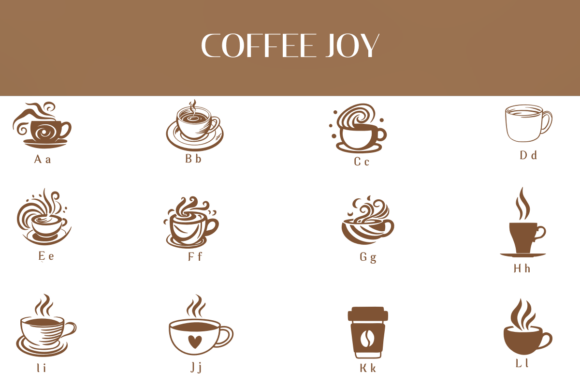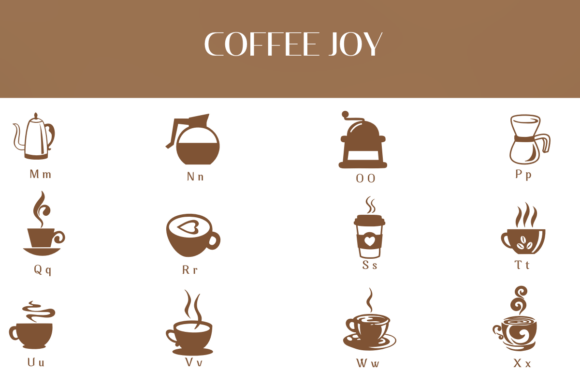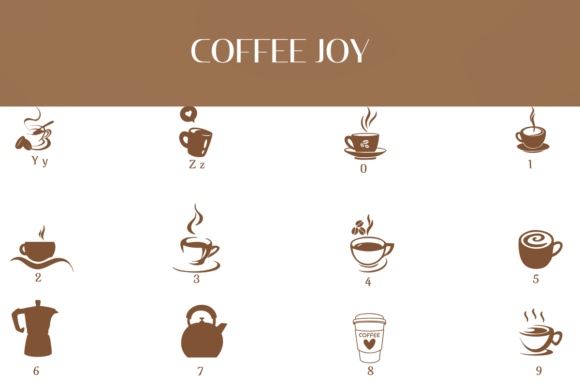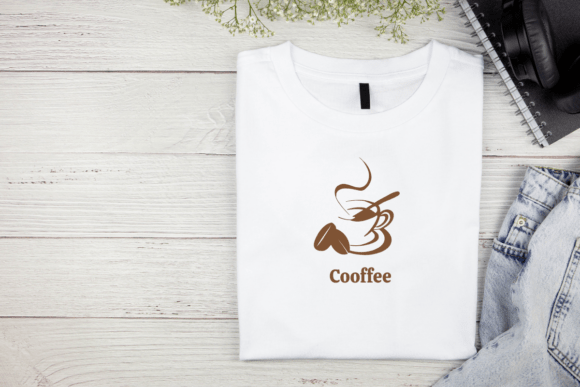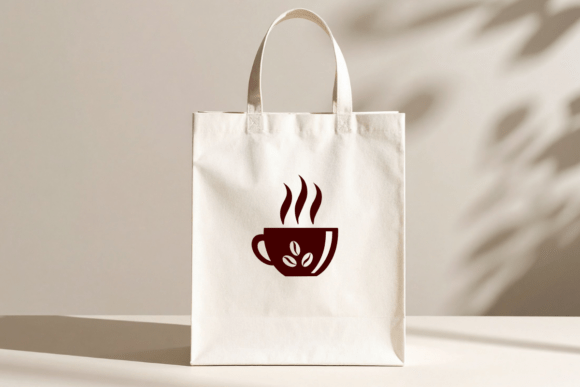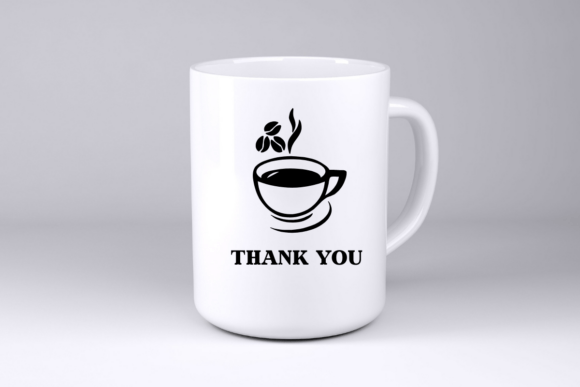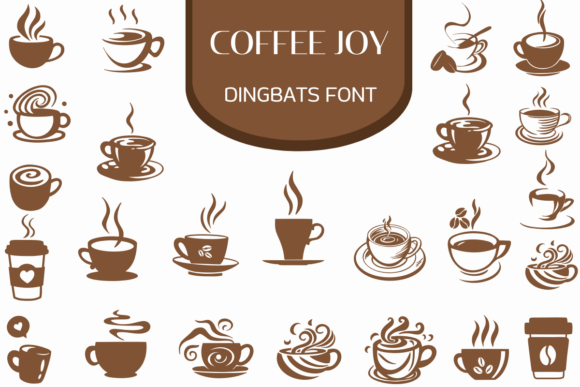
Coffee Joy Font: The Perfect Addition to Your Creative Projects
Are you a designer, crafter, or DIY enthusiast looking for a fun and unique font to add to your creative projects? Look no further than the Coffee Joy Font! This adorable dingbats font is sure to bring a smile to your face and inspire your creativity. In this article, we’ll take a closer look at the Coffee Joy Font, its features, and how you can use it to take your projects to the next level.
What is Coffee Joy Font?
Coffee Joy is a fun and cute dingbats font that is perfect for adding a touch of whimsy to your creative projects. The font features a collection of coffee-themed icons, including coffee cups, beans, and other adorable graphics. With its playful and charming design, Coffee Joy Font is sure to delight designers, crafters, and DIY enthusiasts of all ages.
Key Features of Coffee Joy Font
• Unique and Exclusive Design: Coffee Joy Font features a unique and exclusive design that is sure to make your projects stand out from the crowd.
• Coffee-Themed Icons: The font includes a wide range of coffee-themed icons, including coffee cups, beans, and other adorable graphics.
• Dingbats Font: Coffee Joy Font is a dingbats font, which means that it’s made up of graphical symbols and icons rather than traditional letters and numbers.
How to Use Coffee Joy Font
• Greeting Cards: Use Coffee Joy Font to create adorable greeting cards for coffee lovers.
• Invitations: Add a touch of whimsy to your invitations with Coffee Joy Font.
• Social Media Graphics: Use Coffee Joy Font to create fun and engaging social media graphics.
• DIY Crafts: Add a personal touch to your DIY crafts, such as scrapbook pages and journal entries, with Coffee Joy Font.
Benefits of Using Coffee Joy Font
There are many benefits to using Coffee Joy Font in your creative projects. Here are a few:
• Adds a Touch of Whimsy: Coffee Joy Font adds a touch of whimsy and playfulness to your projects.
• Unique and Exclusive: The font’s unique and exclusive design ensures that your projects will stand out from the crowd.
Tips and Tricks for Using Coffee Joy Font
Here are a few tips and tricks for using Coffee Joy Font:
• Experiment with Different Sizes: Experiment with different font sizes to find the perfect size for your project.
• Combine with Other Fonts: Combine Coffee Joy Font with other fonts to create a unique and eye-catching design.
• Use in Digital Projects: Use Coffee Joy Font in digital projects, such as social media graphics and blog posts.
• Use in Print Projects: Use Coffee Joy Font in print projects, such as greeting cards and invitations.
In conclusion, Coffee Joy Font is a fun and cute dingbats font that is perfect for adding a touch of whimsy to your creative projects. With its unique and exclusive design, coffee-themed icons, and ease of use, Coffee Joy Font is sure to delight designers, crafters, and DIY enthusiasts of all ages. So why wait? Download Coffee Joy Font today and start enjoying the joy of coffee in your creative projects!
Coffee Joy is a fun and cute dingbats font. Add it to your creative projects and enjoy the results!